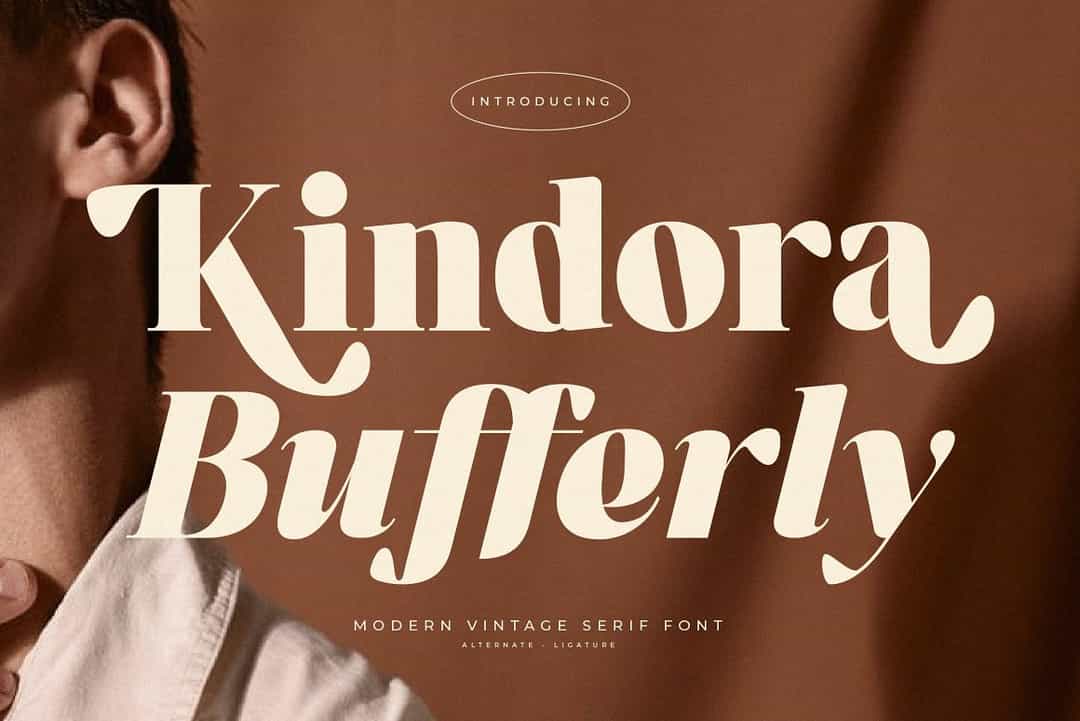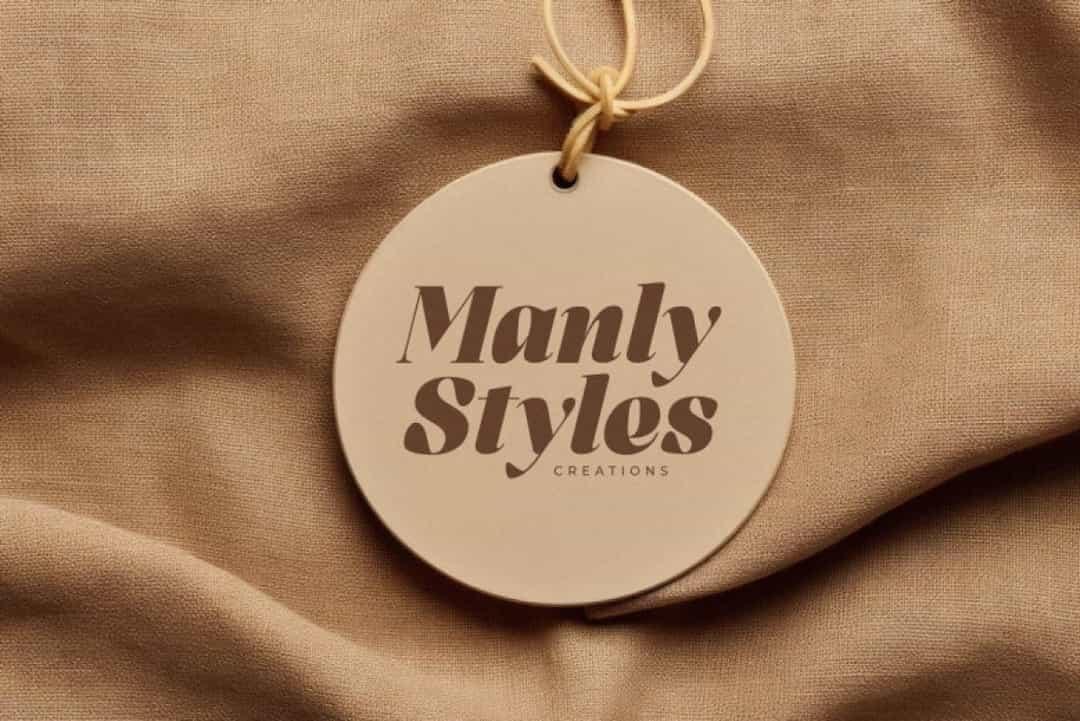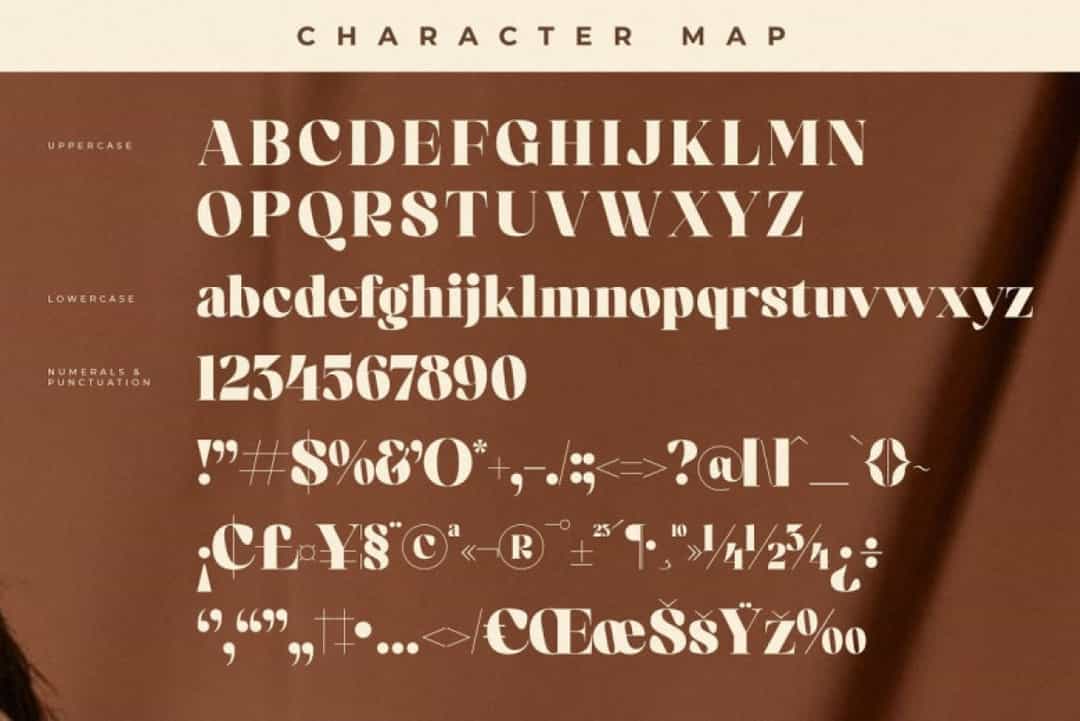
Kindora Bufferly by Letterena is an exquisite Modern Vintage Serif font designed specifically to make logos, branding design, packaging for products, homeware and packaging for products as well as homeware such as mugs with quotes for shopping bags, posters books t-shirts name cards standout beautifully in any design project.